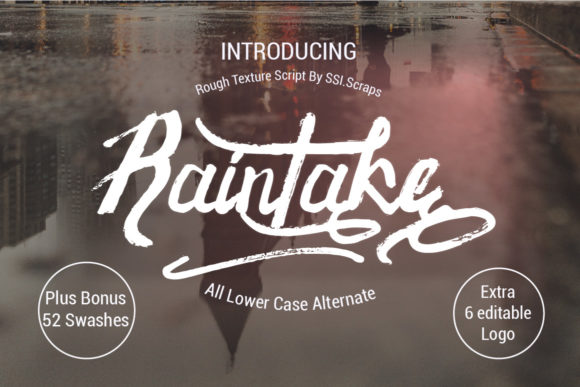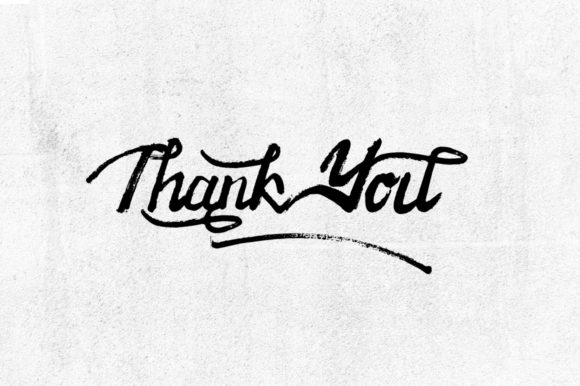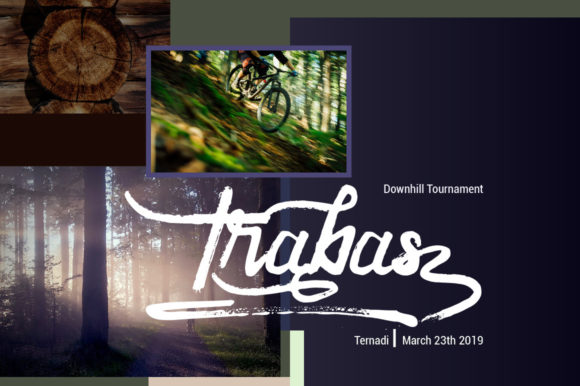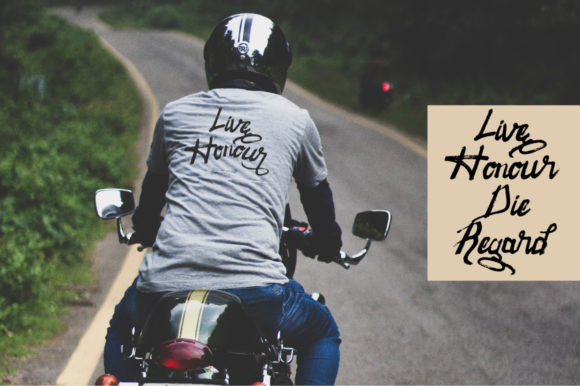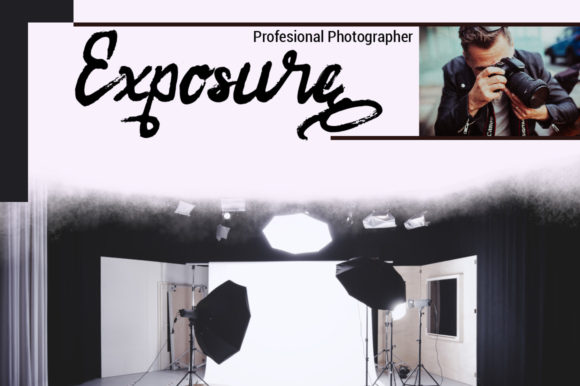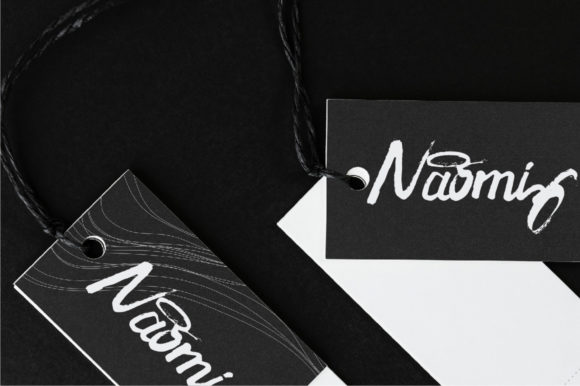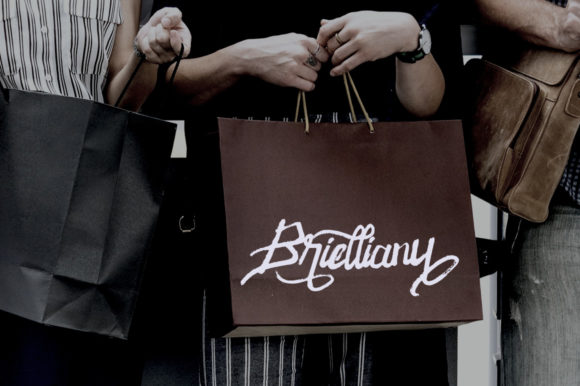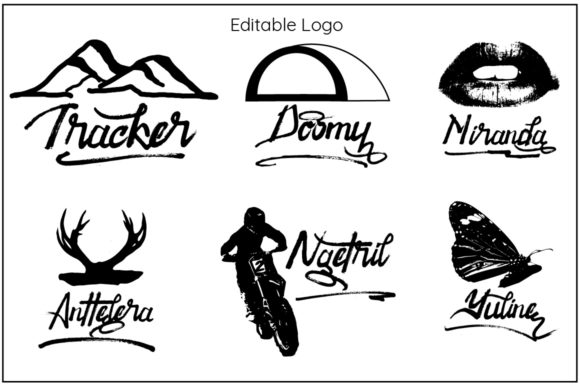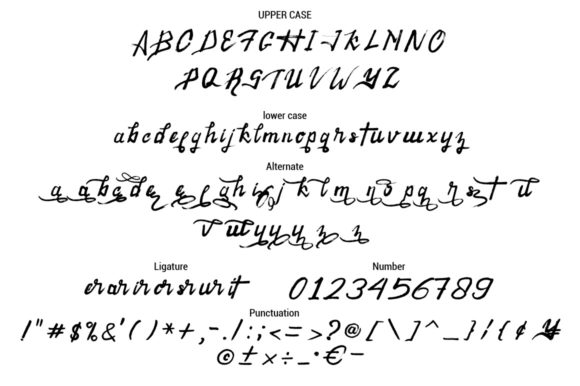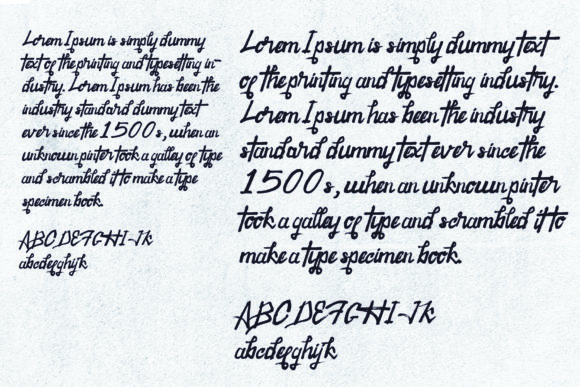
Raintake Font
About Raintake Font
The Raintake is a rough texture script. With Raintake, your design will look brave, great and powerful.
Included as a bonus are 6 editable logos.